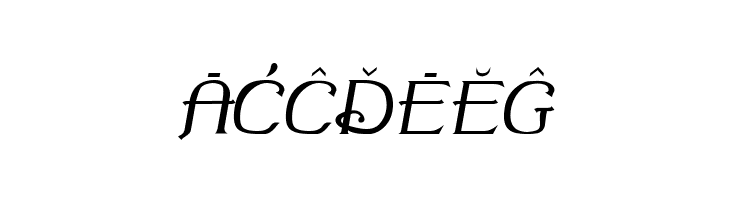
Fox on the Run Academy Font
- Font: Fox on the Run Academy
An oblique, decorative font with medium contrast and artistic flair.
A whimsical and decorative font with artistic curves and flourishes.